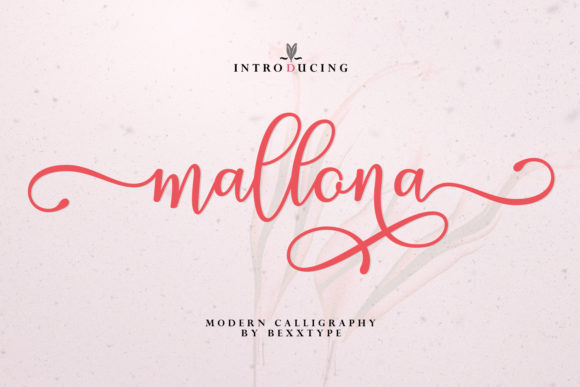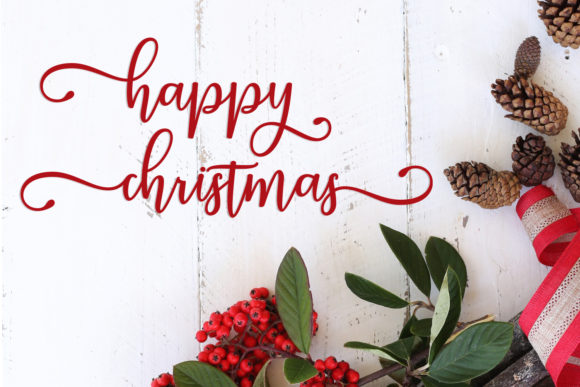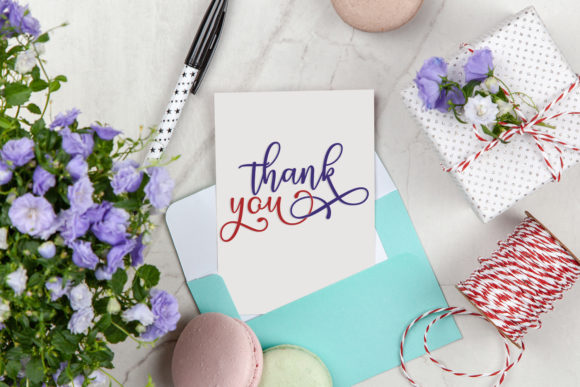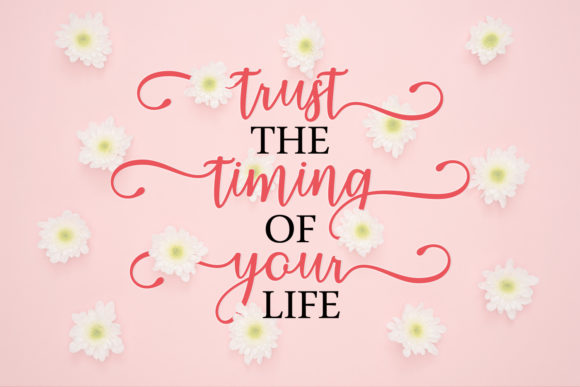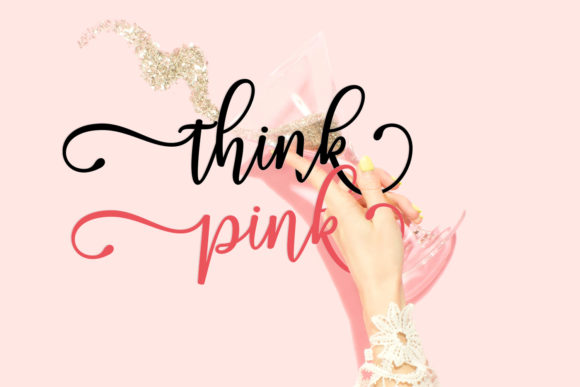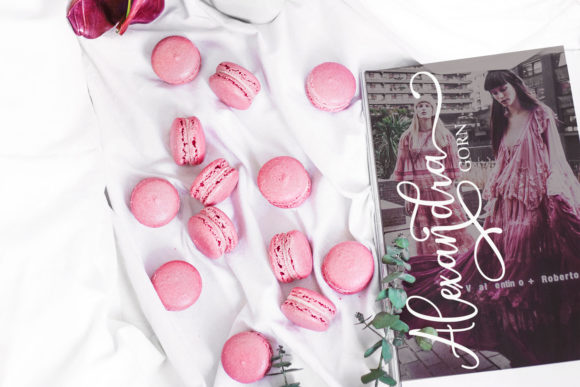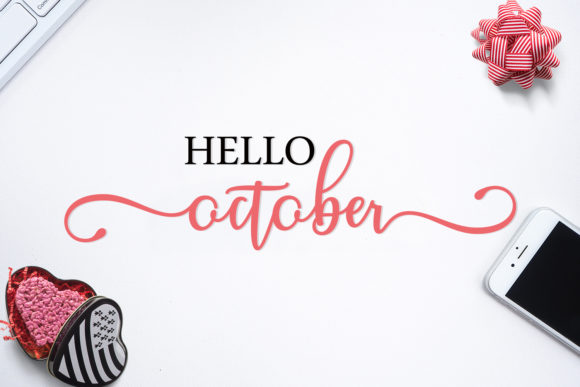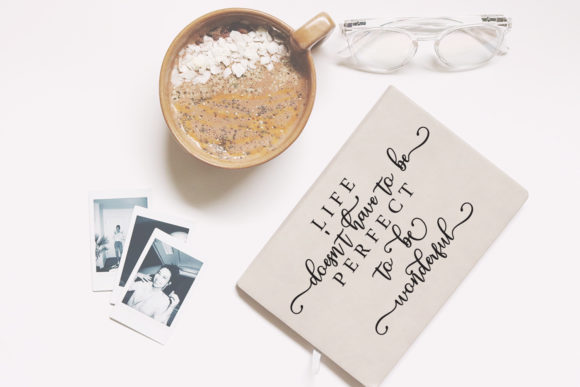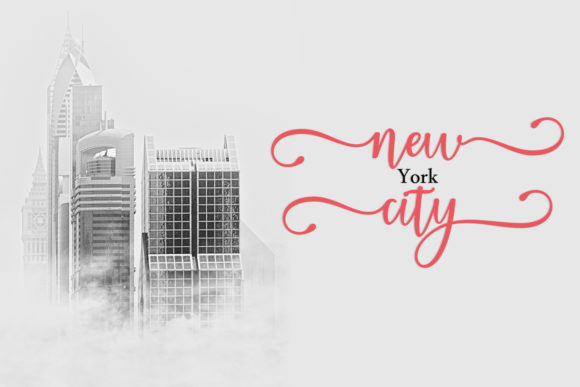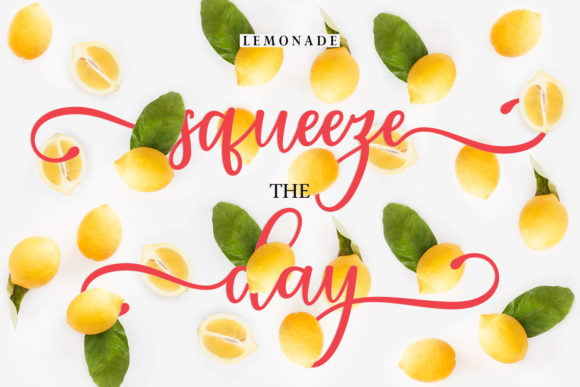
HomeScript FontsMallona Font Script Fonts Mallona Font FacebookXPinterestWhatsApp Mallona Font Poster 2 Mallona Font Poster 3 Mallona Font Poster 4 Mallona Font Poster 5 Mallona Font Poster 6 Mallona Font Poster 7 Mallona Font Poster 8 Mallona Font Poster 9 Mallona Font Poster 10 Mallona Font Poster 11 About Mallona Font Mallona features stunning swashes that will take any craft project to the next level. DOWNLOAD ON CREATIVE FABRICAThis font is sold and delivered by Creative Fabrica. Font Canyon may earn a commission if you buy through this link. People also explored Mananta Font Adenium Monogram Font Sangli Happy February Font The Plumber Font Virmana Font Monalisa Font Kingdom Font Arowana Font 288 0 TagsMallona Font Previous articleNingsih FontNext articleDreaming Font LEAVE A REPLY Cancel reply Comment: Please enter your comment! Name:* Please enter your name here Email:* You have entered an incorrect email address! Please enter your email address here Website: Save my name, email, and website in this browser for the next time I comment. Personal Use Free Pasile Personal Use Free Read more about this font Letter Clips Personal Use Free Read more about this font Satori Personal Use Free Read more about this font Xplor Personal Use Free Read more about this font BLOG Free Fonts Risk: Why Free Fonts Can Be Dangerous for Designers Free Fonts Risk: Why Free Fonts Can Be Dangerous for Designers Using free fonts is a common practice in web and graphic design. However, the... Fonts That Capture the Spirit of New York City The 10 Best Handwriting Fonts to Add Personality to Your Designs Elegant Wedding Invitation Fonts – Handwritten & Script Fonts